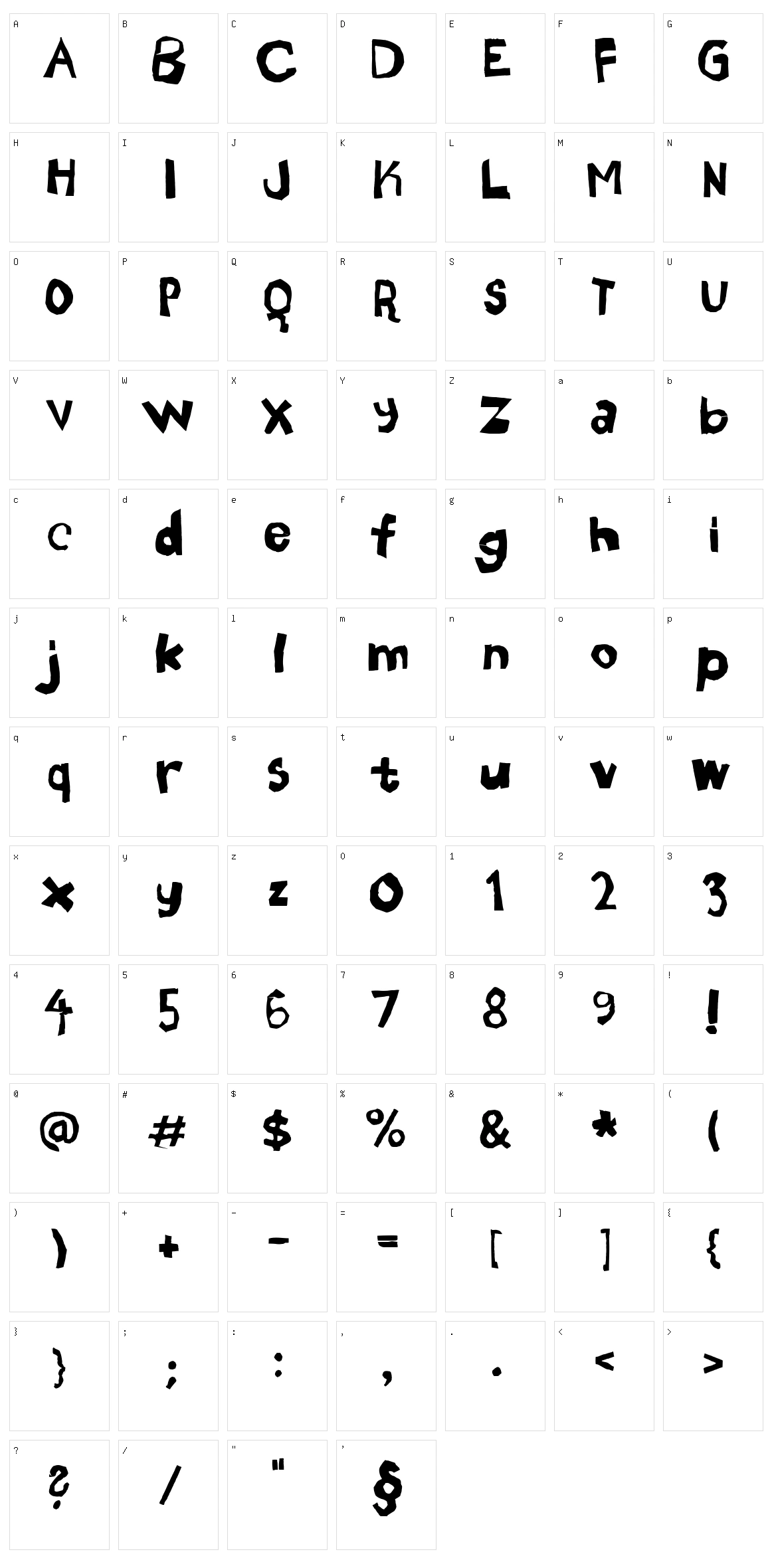
The free font Nozhnitsy is carefully designed by MatFonts, showcasing a thoughtful balance of creativity and usability and falls under the Cartoon font style. When you download the ZIP file, it contains only 37.49 KB of font files, making it lightweight and quick to download. Please review the license details below to understand permitted usage and distribution rights. If license information is not available, we recommend using this font for personal projects only or contacting the author directly for commercial usage permissions.